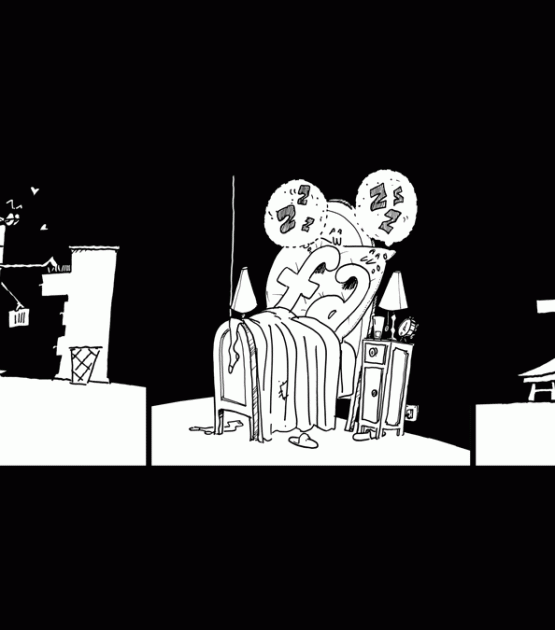
A personable companion to an award-winning design, and TypeTogether’s first Armenian Font.
The Adelle Sans font family — José Scaglione and Veronika Burian’s sans serif counterpart to the award-winning Adelle font family — provides a more clean and spirited take on the traditional grotesque sans. As is typical with TypeTogether typefaces, the most demanding editorial design problems were taken into consideration when creating Adelle Sans. The combination of lively character and unobtrusive appearance inherent to grotesque sans serifs make Adelle Sans an utterly versatile tool for every imaginable situation. Whether for branding, signage, or advertising, the keyword behind Adelle Sans’s use is flexibility.
We believe that broad language support is paramount and Adelle Sans Armenian is yet another push in our ongoing multilingual efforts. We expanded the family to a robust seven weights plus matching italics to serve Armenian readers well on the web, in print, and on screens and to fill the need for quality Armenian typefaces for editorial use.
Careful research and consultation with Armenian type expert Hrant Papazian yielded cultural and typographic consistency within both the Latin and Armenian scripts. And, as if that weren’t enough, we are working hard to add the serif variant as well.